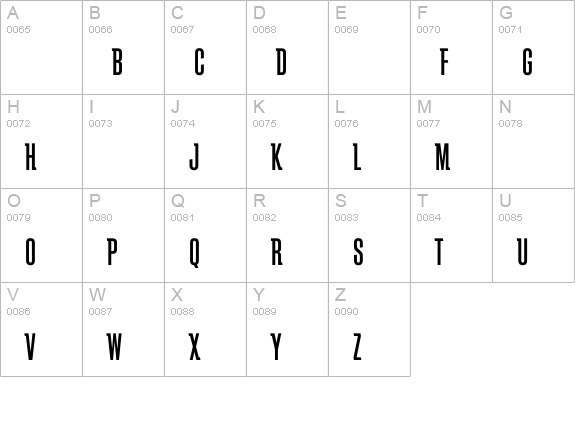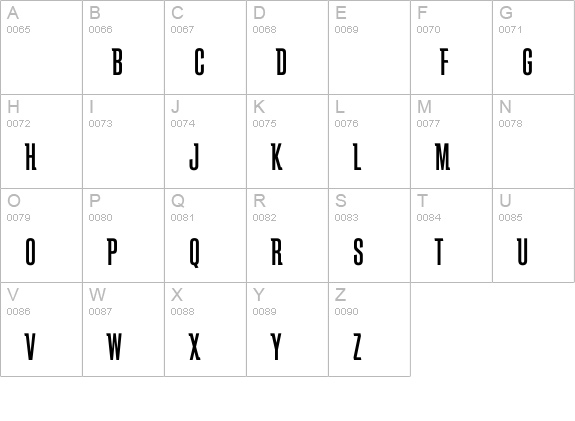
SchindlerMedium Font Details
SchindlerMedium font is a captivating and versatile typeface that exudes elegance and sophistication. With its refined curves and clean lines, this font is perfect for a wide range of design projects, from professional documents to creative branding. What sets SchindlerMedium font apart is not only its aesthetic appeal but also its accessibility. It is freely available to download at FontsMarket.com, making it an excellent choice for both personal and commercial use. Whether you're a professional designer or simply someone who appreciates beautiful typography, this font offers a seamless and hassle-free experience. SchindlerMedium font strikes the perfect balance between classic elegance and modern aesthetics, making it suitable for various purposes. Its medium weight provides a harmonious blend of readability and visual impact, making it ideal for headlines, titles, and body text alike. With its extensive character set, SchindlerMedium font supports multiple languages, ensuring that it can be utilized in diverse global contexts. Its timeless design and versatility make it a valuable addition to any font collection. In conclusion, SchindlerMedium font is a visually striking typeface that combines elegance with accessibility. With its free availability for download at FontsMarket.com, it offers a seamless and hassle-free experience for all users. Whether for professional or personal projects, this font is sure to make a lasting impression.